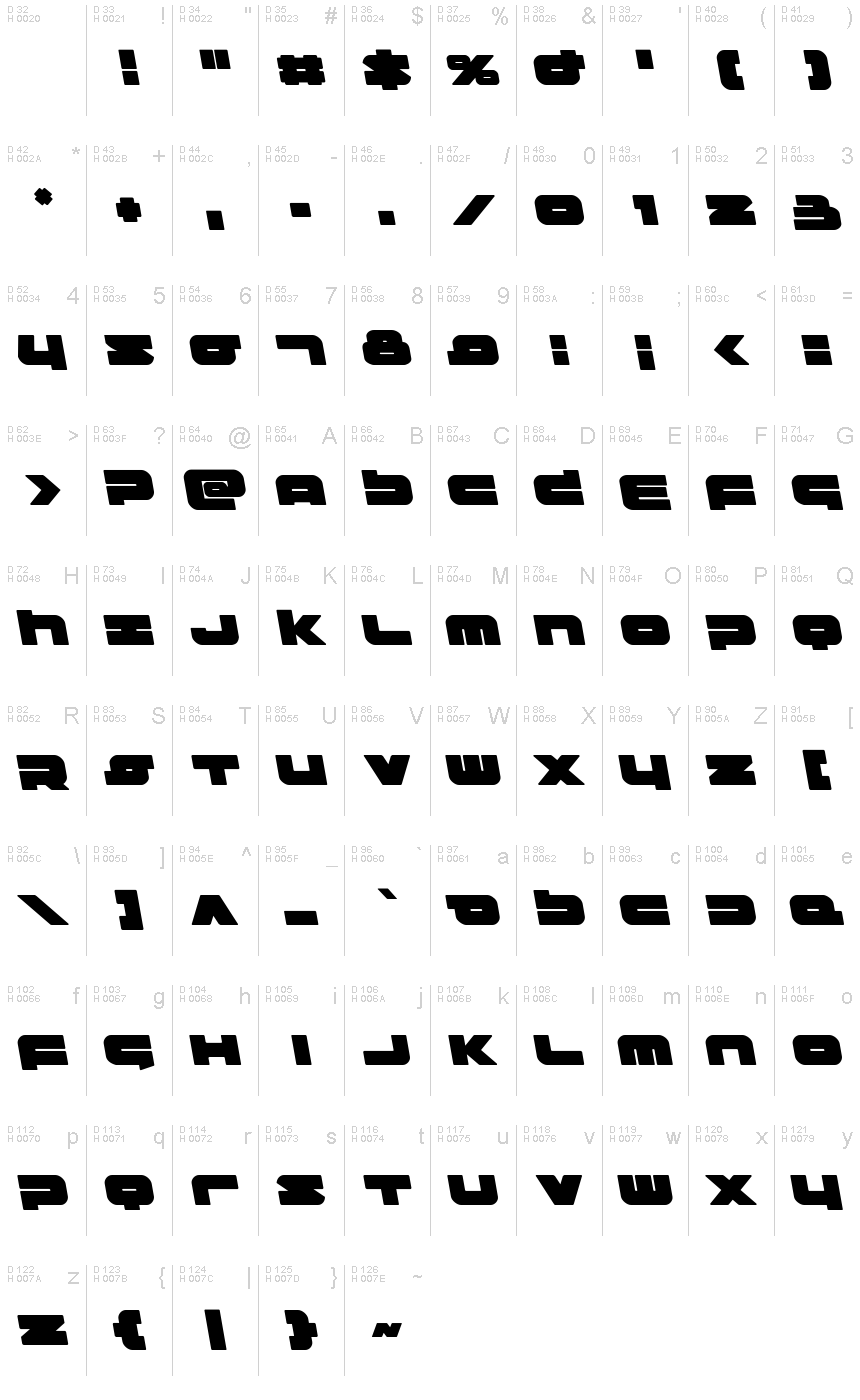
Delmoto Semi-Leftalic
Delmoto Semi-Leftalic font from the Delmoto family by Iconian Fonts is a free display font that embodies a futuristic style. With its bold weight and expanded width, this typeface captures attention with a strikingly modern aesthetic, perfect for forward-thinking designs. Its distinctive features make it ideal for headlines, posters, and branding materials that aim to convey innovation and creativity.
The expanded and bold characteristics of Delmoto Semi-Leftalic not only enhance readability but also provide a dynamic edge to any project. Designers can easily integrate this font into tech-themed visuals, gaming interfaces, or sci-fi projects. Explore endless design possibilities with Delmoto Semi-Leftalic by downloading it today to add a contemporary touch to your creative work.